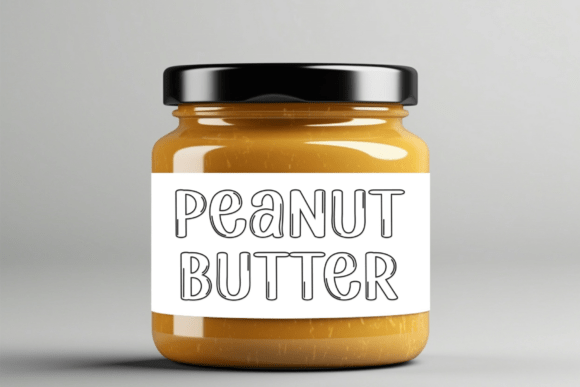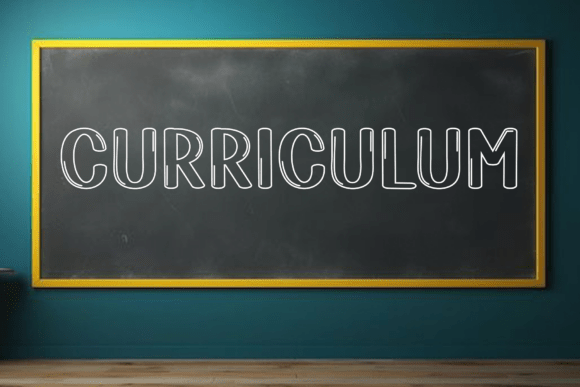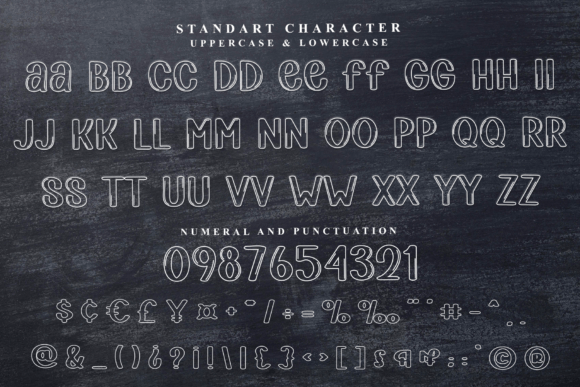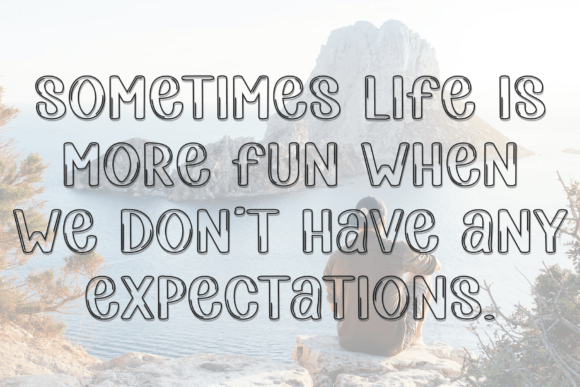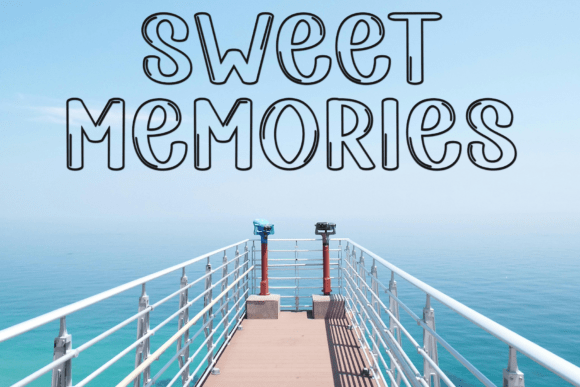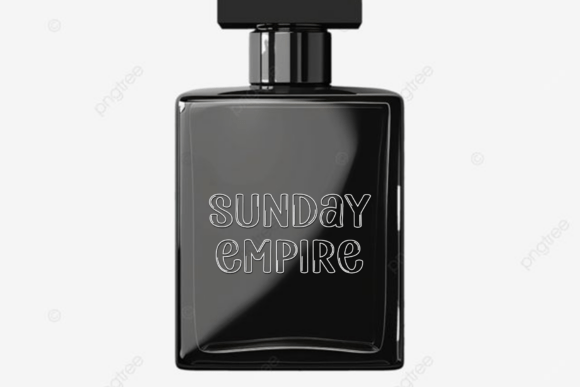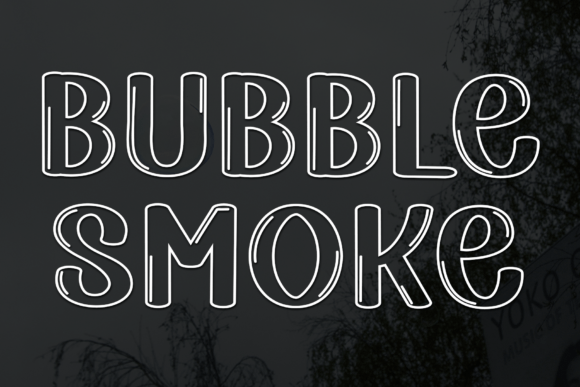
Bubble Smoke Font: Add a Touch of Holiday Magic to Your Designs
The holiday season is upon us, and what better way to get into the spirit than with a festive and merry typeface? Look no further than the Bubble Smoke Font, a whimsical and decorative font that’s perfect for adding a touch of enchantment to your designs. In this article, we’ll dive into the world of Bubble Smoke Font and explore its features, uses, and benefits for designers and crafters.
Bubble Smoke Font is a unique and eye-catching typeface that captures the essence of the holiday season. Its decorative elements and whimsical flair make it an ideal choice for designers and crafters looking to add a touch of magic to their projects. Whether you’re creating greeting cards, gift tags, or holiday-themed projects, this font is sure to bring a cheerful and nostalgic ambiance to your words.
Bubble Smoke Font is specifically designed with the holiday season in mind. Its festive and merry design makes it perfect for a wide range of projects, including:
- Greeting cards: Add a personal touch to your holiday cards with this beautiful font.
- Gift tags: Make your gifts stand out with decorative and festive gift tags.
- Holiday-themed projects: From party invitations to festive posters, this font is perfect for any holiday project.
Bubble Smoke Font offers a range of benefits for designers and crafters, including:
- Unique and eye-catching designs: Stand out from the crowd with this festive and merry typeface.
- Versatility: Perfect for a wide range of projects, from greeting cards to holiday-themed posters.
Bubble Smoke Font is a festive and merry typeface that’s perfect for adding a touch of holiday magic to your designs. With its decorative elements, whimsical flair, and PUA encoding, it’s an ideal choice for designers and crafters looking to create unique and eye-catching projects. Whether you’re creating greeting cards, gift tags, or holiday-themed projects, this font is sure to bring a cheerful and nostalgic ambiance to your words. So why wait? Let your typography shine with the magic of Bubble Smoke Font!